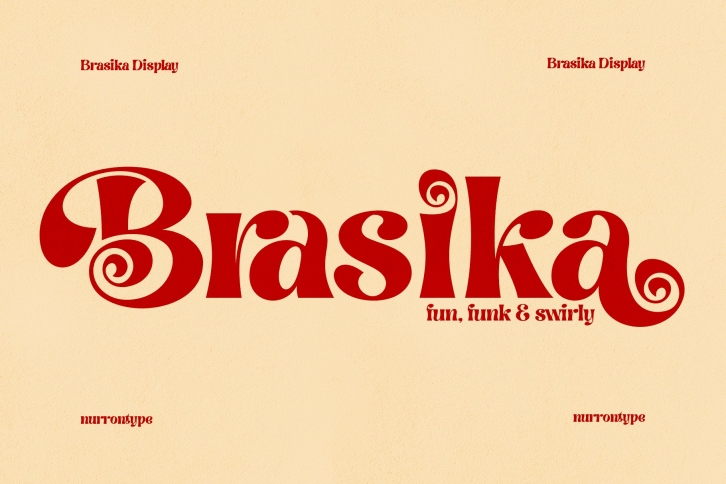
Brasika is a great font that was designed by Nurrontype. Imagine the amount of combinations you can create using this font! The archive is 9.94 MB and it was released on July 13, 2020. Brasika looks beautiful on wedding invitations, greeting cards, logos, posters, labels, t-shirt designs, logos, business cards and is perfect for use in ink or watercolor works, fashion, magazines, packaging and food menus, children's books and more!